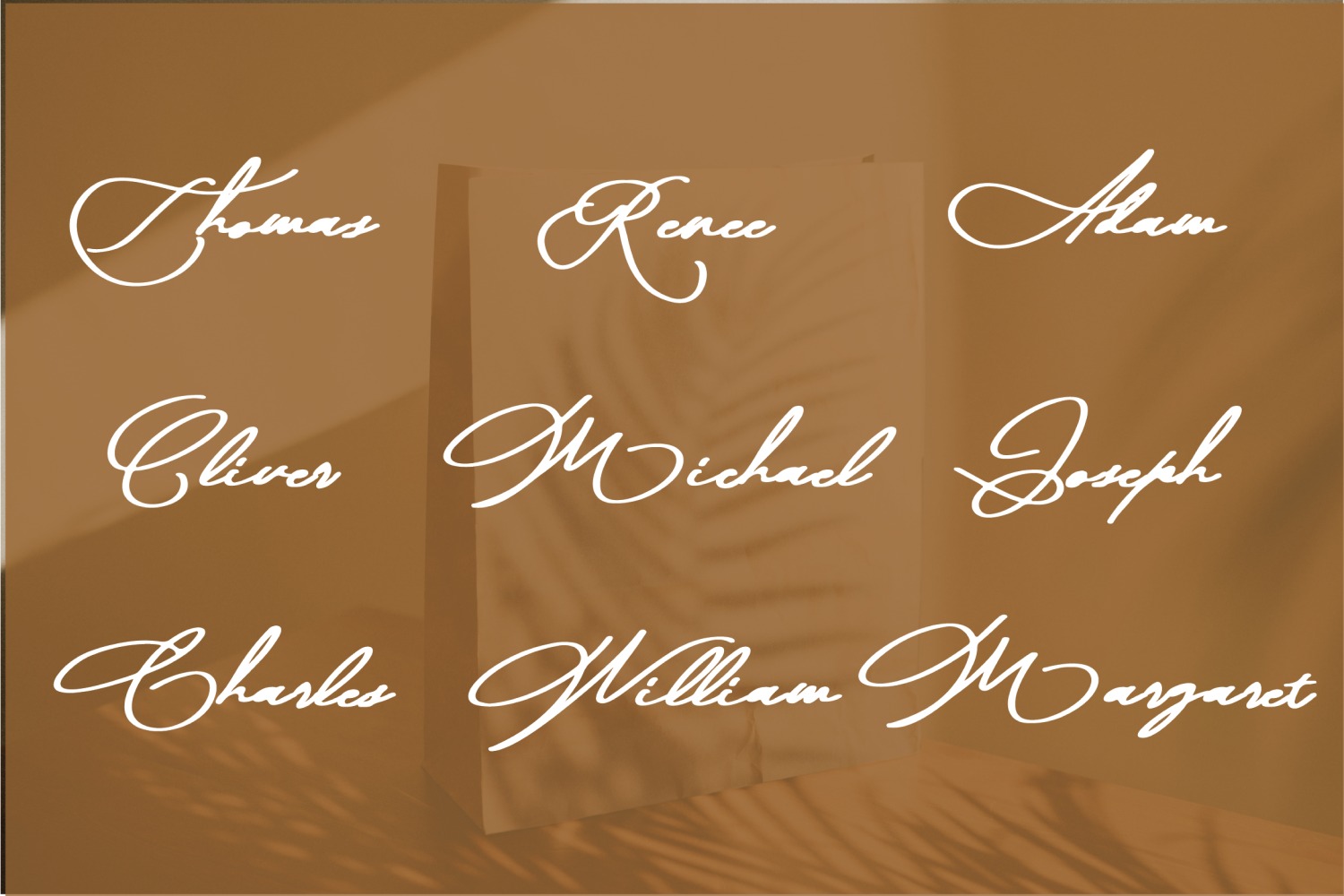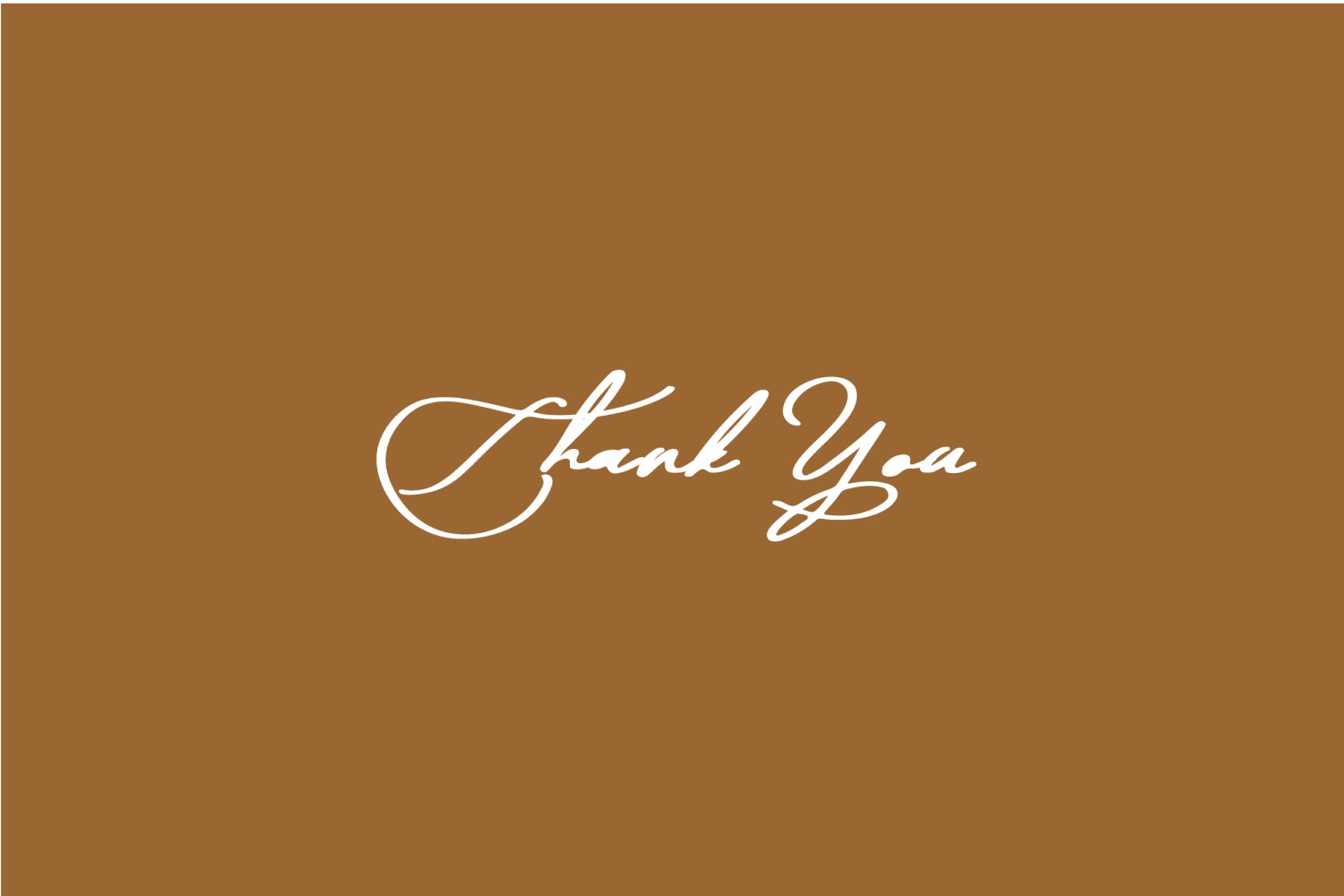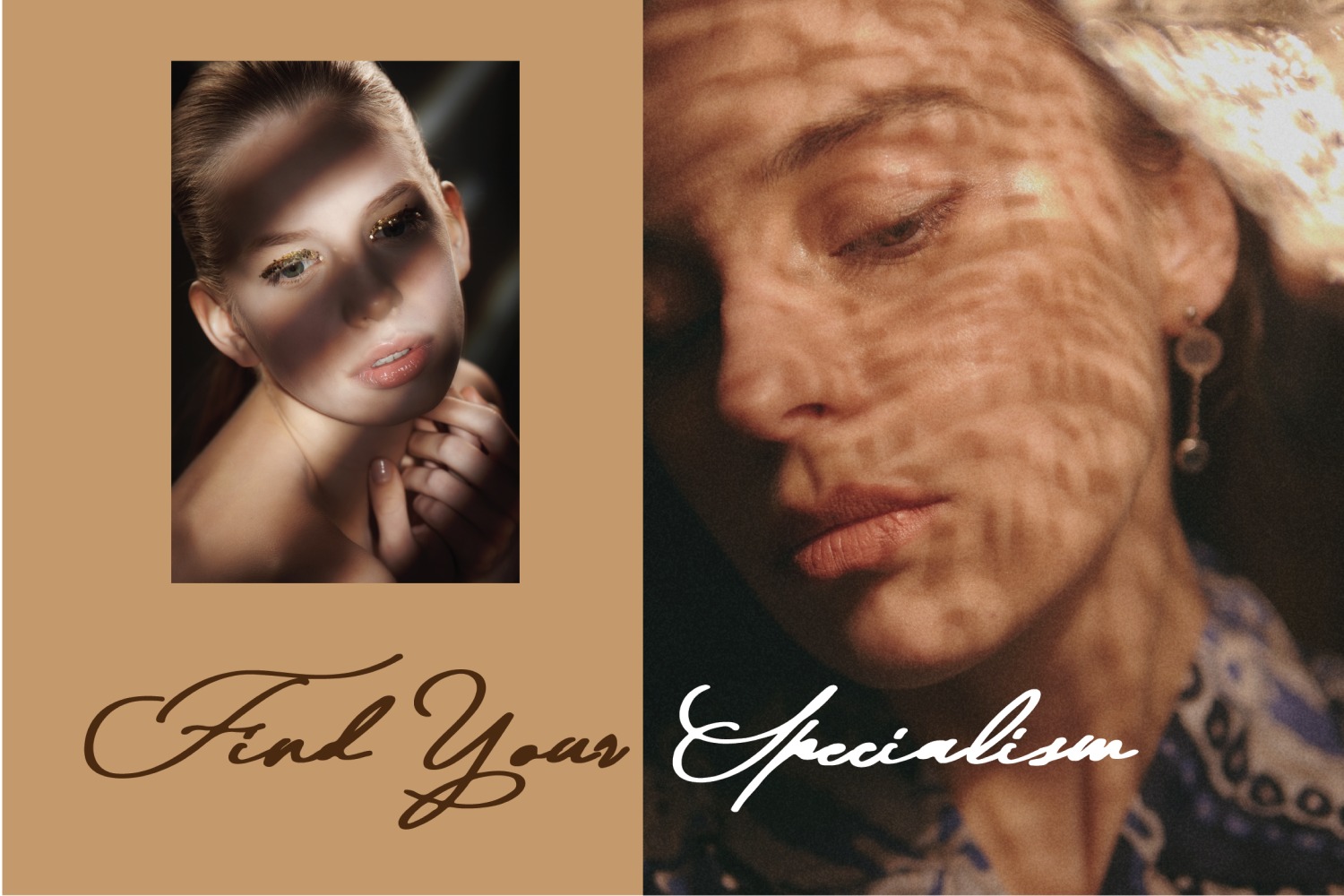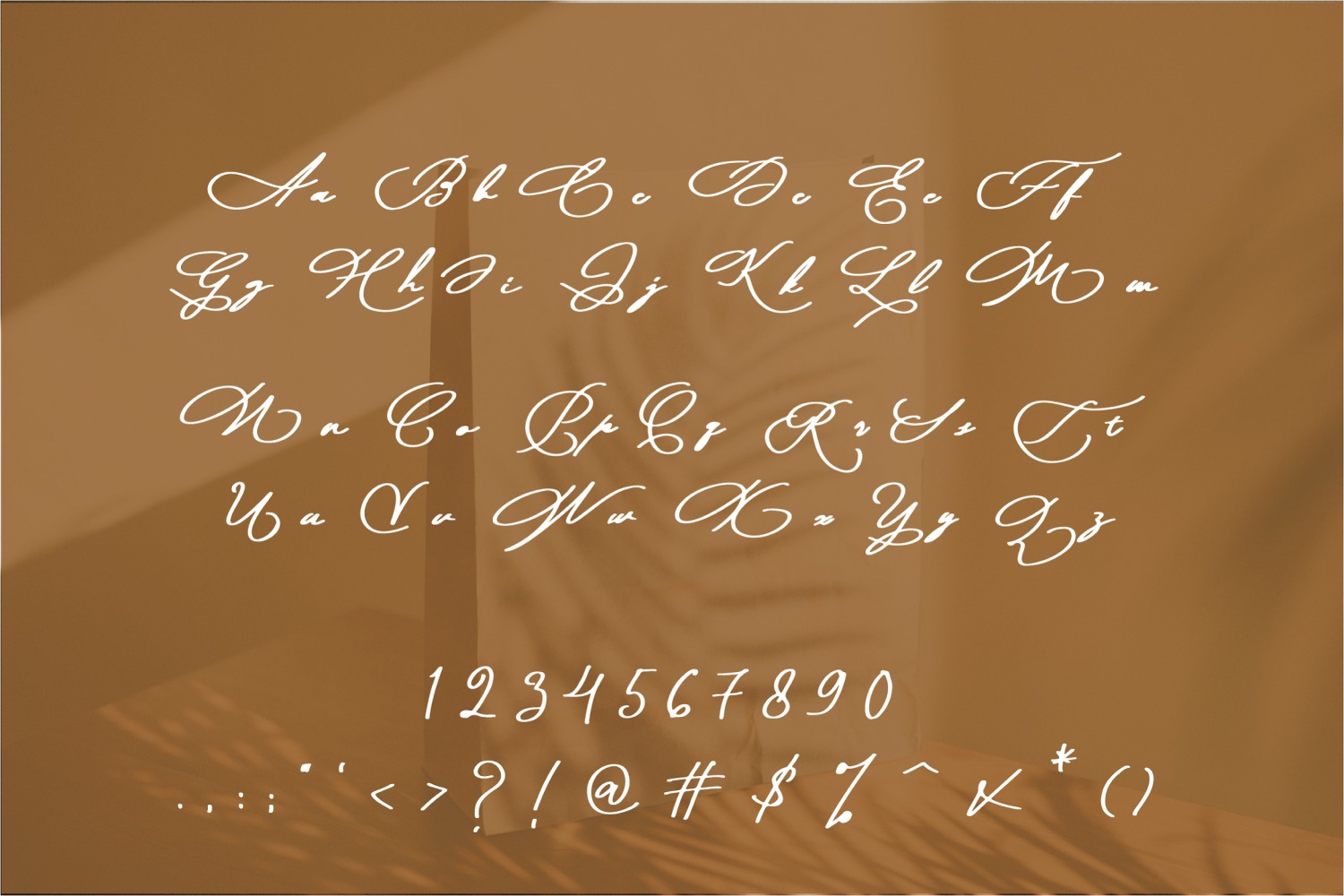
Moana Script Font
It’s a new modern script font with a handmade calligraphy style, decorative characters, and an irregular baseline. Trendy and feminine style. it looks lovely on wedding invitations, thank you cards, quotes, greeting cards, logos, business cards, and more.